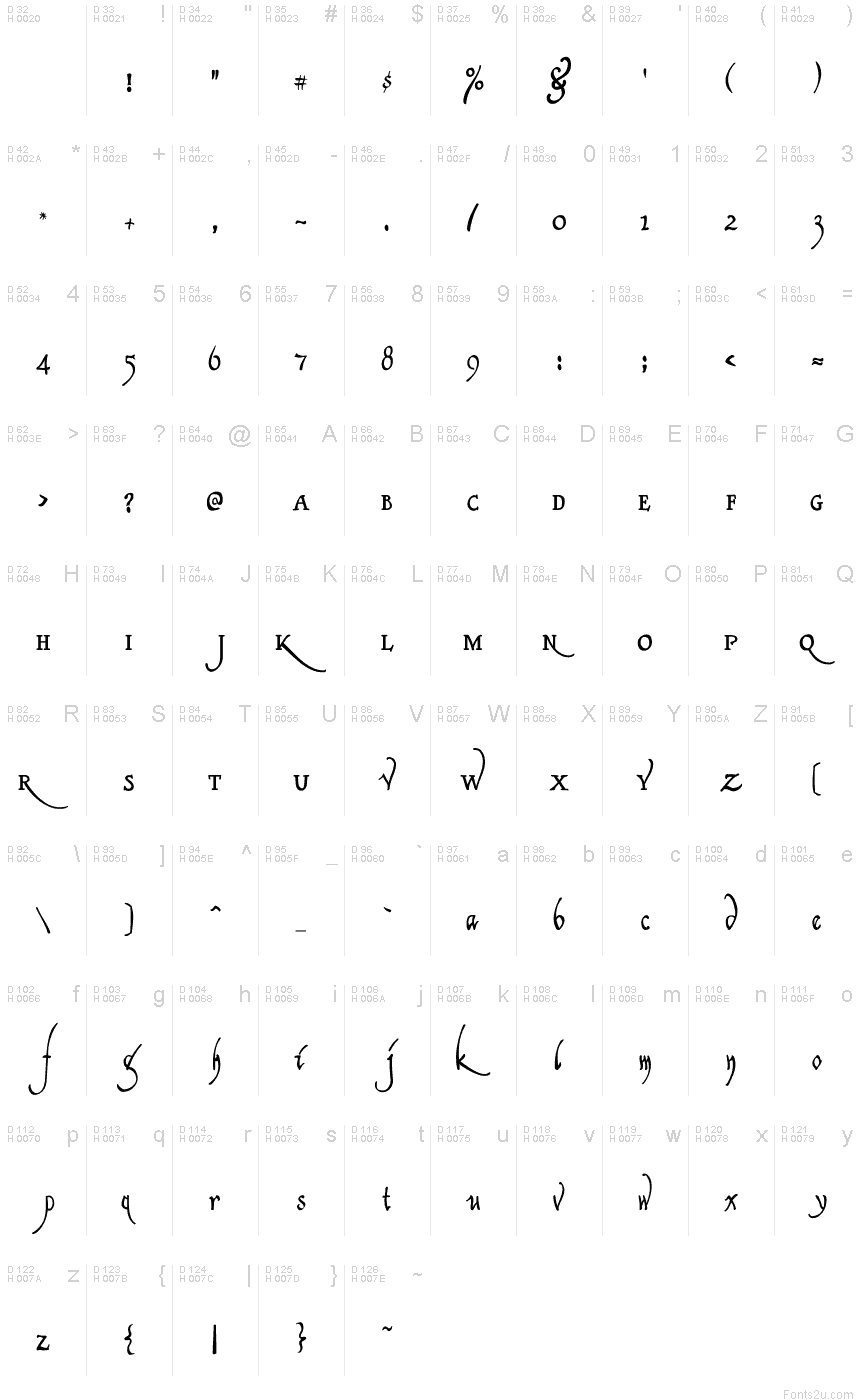
Clerica Medium
Clerica Medium font by Paul Lloyd Fonts is a free decorative display typeface with a loose, inky energy that looks like it was brushed straight onto the page. Letters sway and lean with a casual, handmade rhythm, yet the forms stay clear enough to read at a glance. The Clerica family’s Medium weight has a bold, slightly irregular texture that feels organic and spontaneous, like a quick note jotted with a thick marker.
Using Clerica Medium, you can give posters, book covers, café menus, artisanal packaging, album art, and bold social graphics a distinctive, human touch. This free font really shines at larger sizes, where its quirky curves and playful angles can breathe. Pair it with a clean geometric sans for small supporting text to keep layouts readable while Clerica does the expressive, headline-grabbing work.